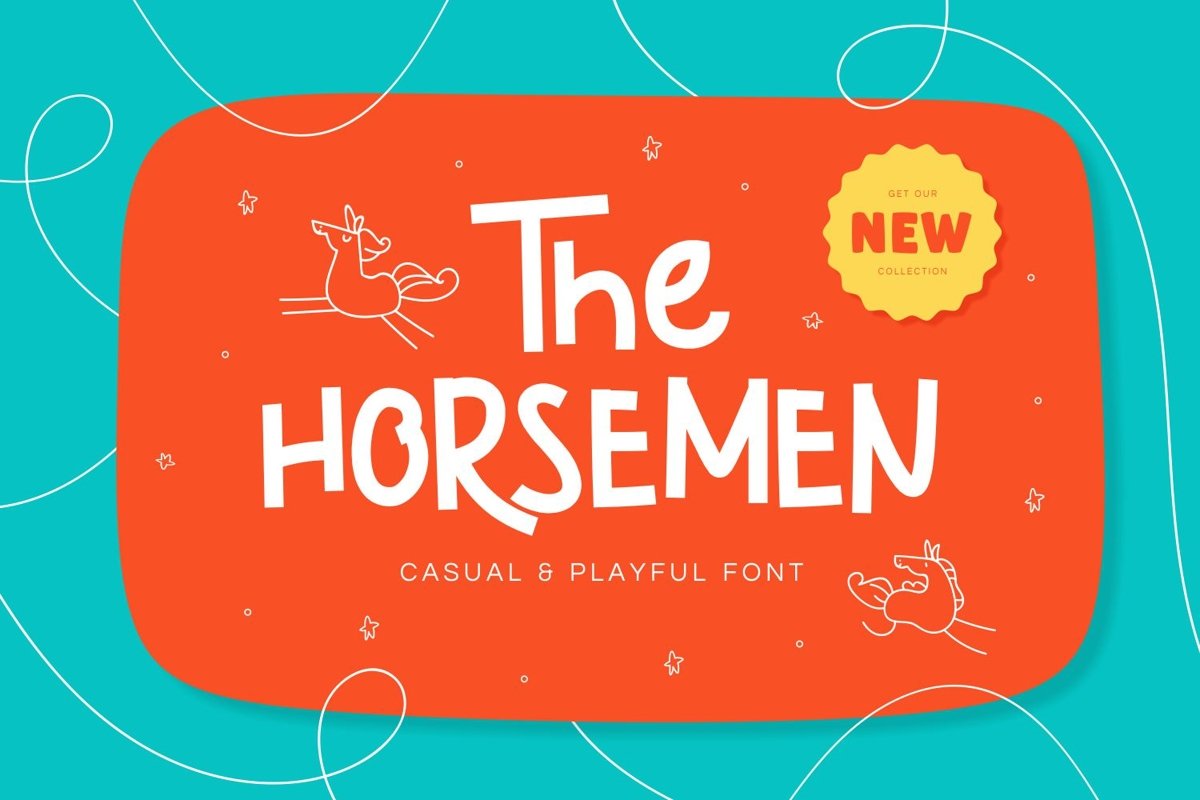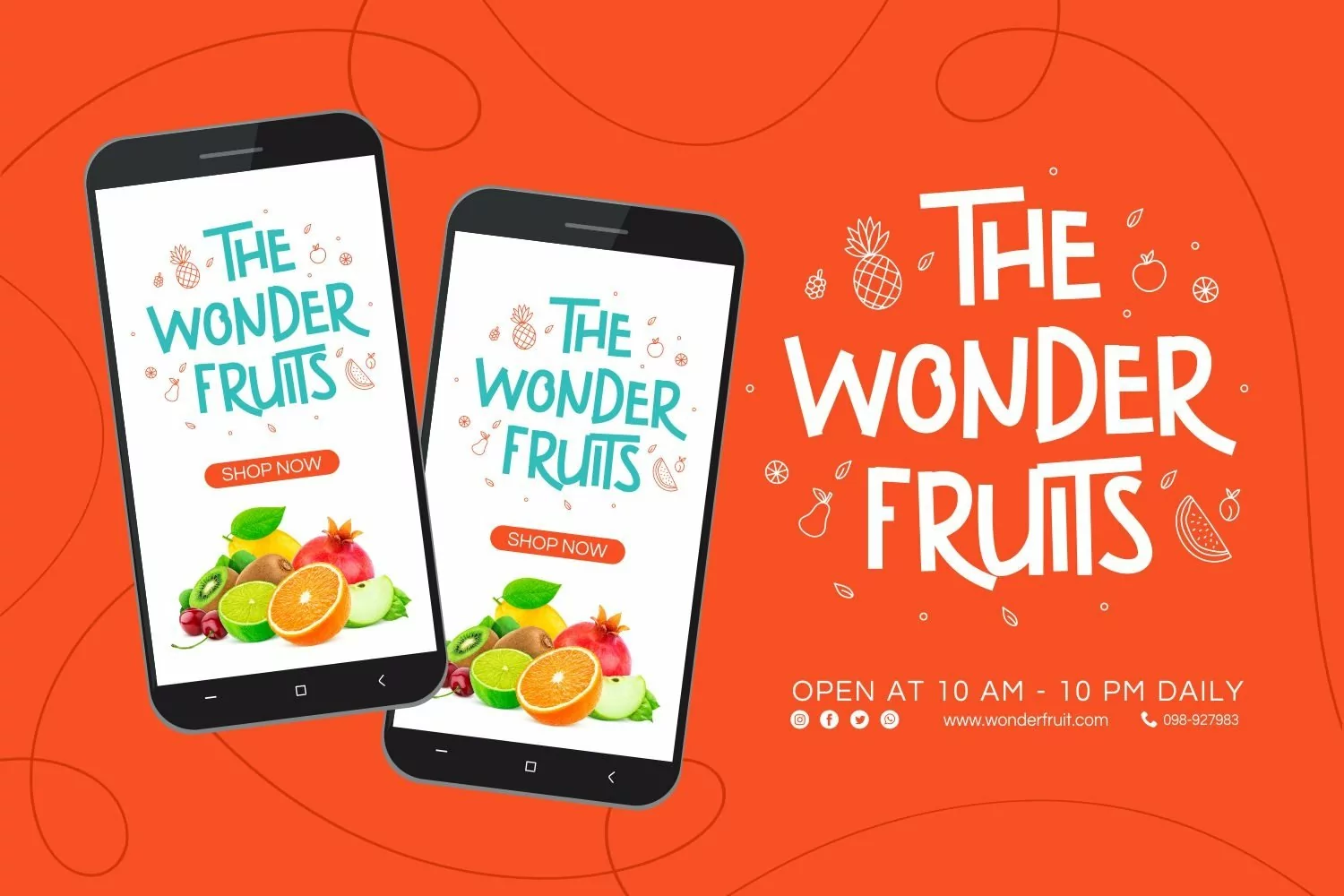
The Horsemen is san serif display come with playful themes. We wanted to create the most clean and simple character. It matches applies in some designs such as the logotype, brand, packaging, quotes, cute poster, kids shirt, cover book, birthday invitation and more custom design. The features uppercase, lowercase, numeral, punctuation & symbol, multilingual support, PUA encoded (fully accessible without additional design software).